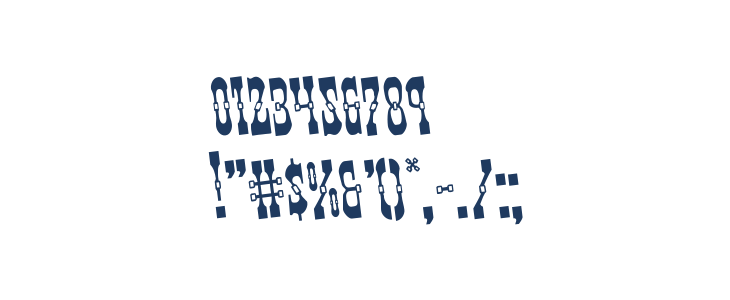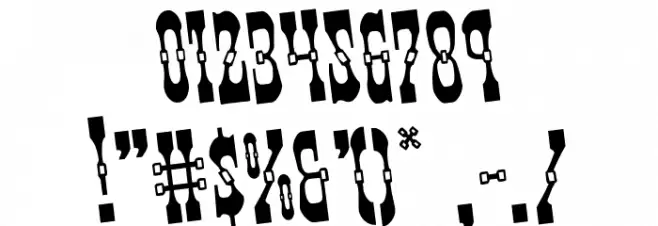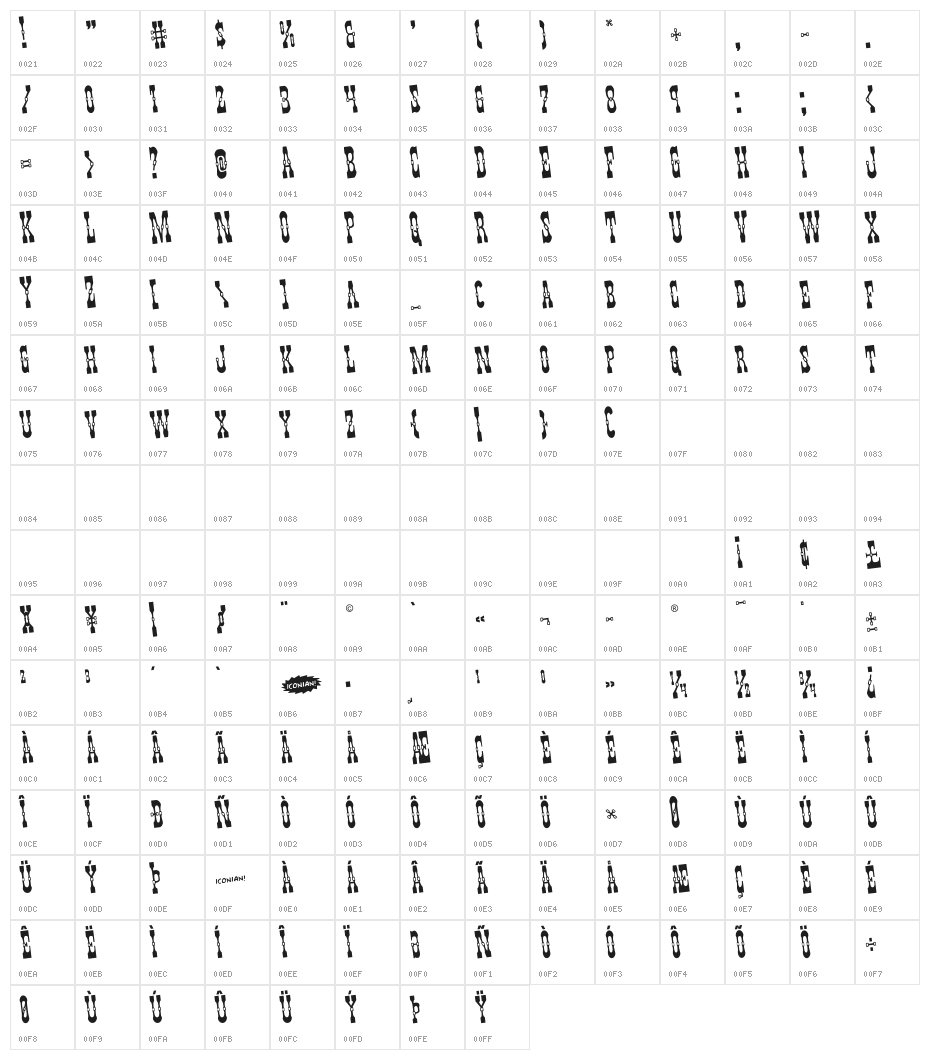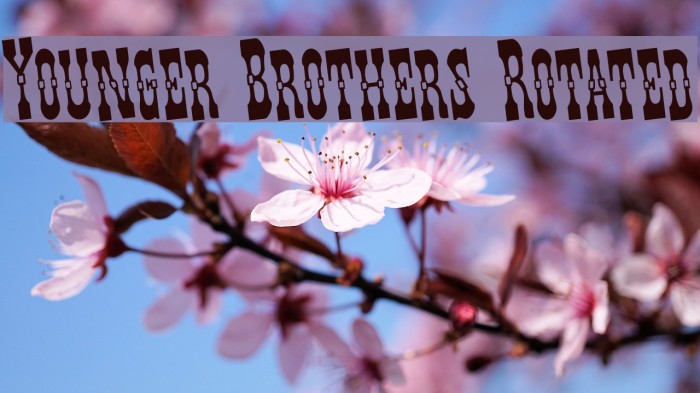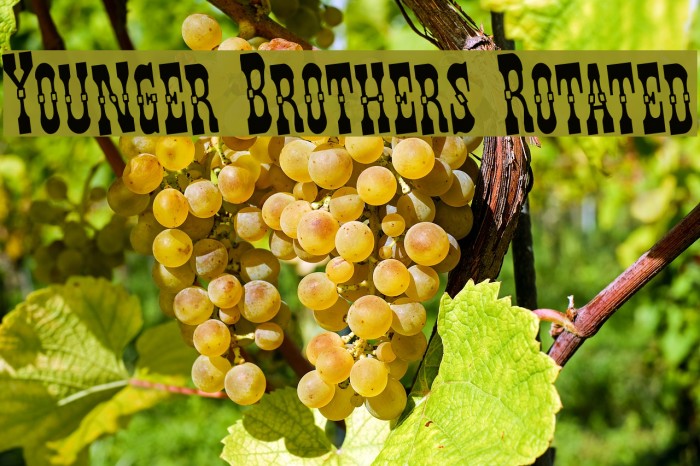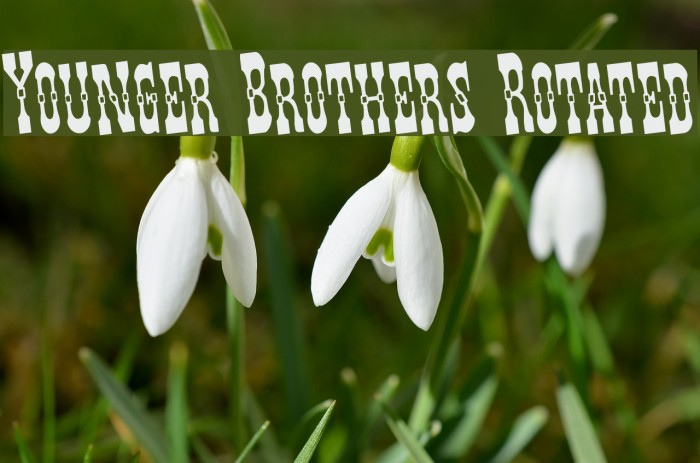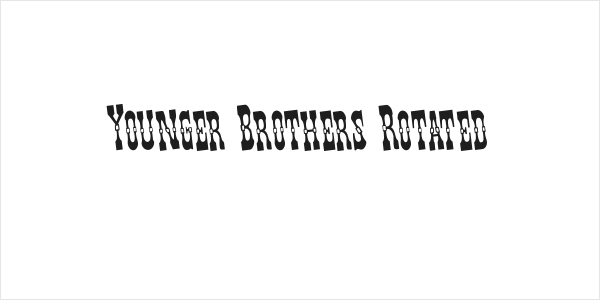
Younger Brothers Rotated Font
Younger Brothers Rotated Description
This font features a bold and decorative style with a unique, playful twist. Each character is designed with a distinct cut-out pattern that adds a sense of whimsy and creativity. The uppercase letters are robust and eye-catching, making them ideal for attention-grabbing headlines. The numbers and special characters maintain the same playful design, ensuring consistency across all text elements. The font's thick strokes and high contrast make it stand out, while the quirky cut-outs add a layer of visual interest that is both modern and fun.
| Proposed Projects | Ideal for posters, event invitations, children's book covers, and playful branding projects. |